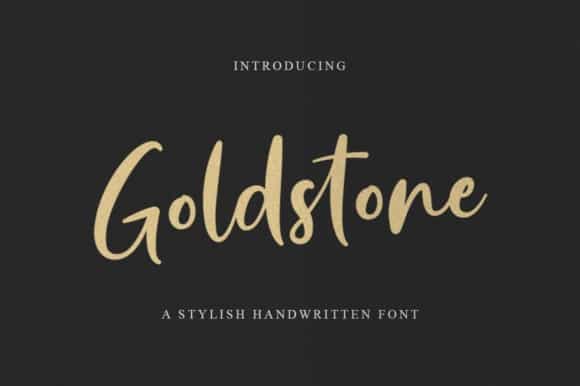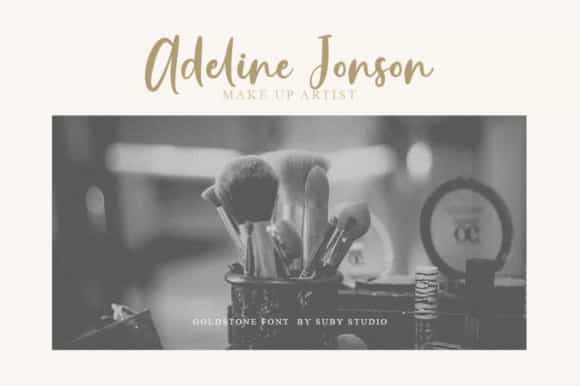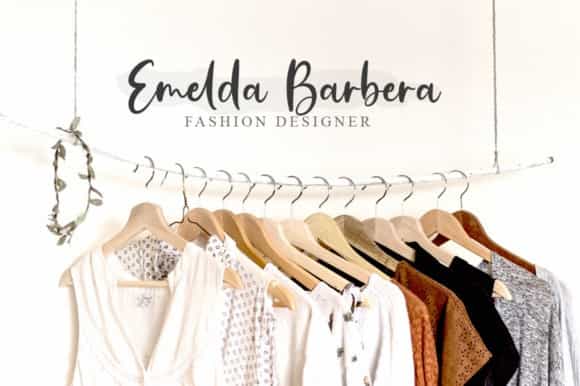
Goldstone includes uppercase and lowercase letters, numbers, punctuation, ligature and multi lingual support. Goldstone Font is a handwritten script font with an easy and classy style, this font will be perfect for your next creative projects like watermark on photography, quotes, album cover, logo, business card etc.